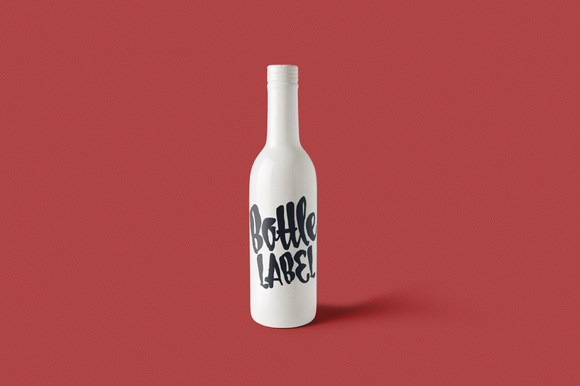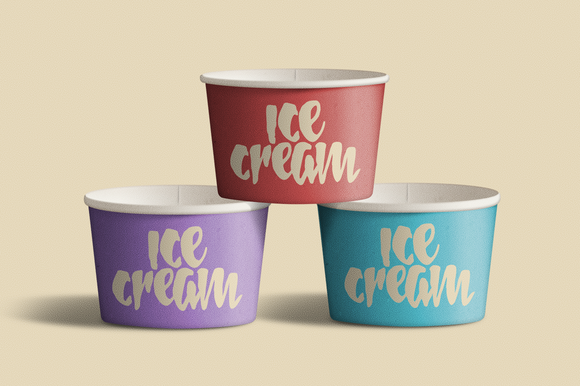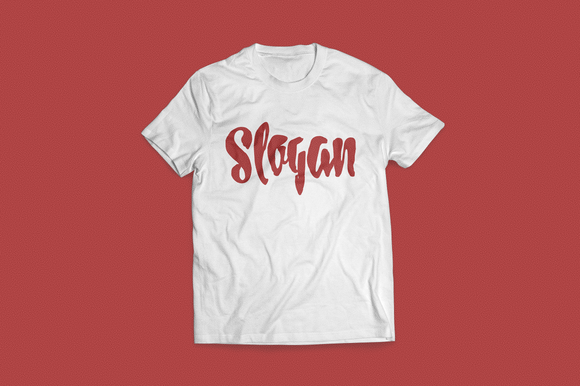
HomeScript FontsPaunchy Font Script Fonts Paunchy Font FacebookXPinterestWhatsApp Paunchy Font Poster 2 Paunchy Font Poster 3 Paunchy Font Poster 4 About Paunchy Font “Paunchy” is a playful and hand lettered, calligraphy based font. Especially made for Logos and Headlines DOWNLOAD ON CREATIVE FABRICAThis font is sold and delivered by Creative Fabrica. Font Canyon may earn a commission if you buy through this link. People also explored Farrina Font Cute Pinkies Font Crazy Rich Font Moustier Font Kinder School Font Rahayu Font Waanand Font Mock-Up Farmhouse Sign Shahira Font 296 0 TagsPaunchy Font Previous articleRumble Family FontNext articleLovely Madness Font LEAVE A REPLY Cancel reply Comment: Please enter your comment! Name:* Please enter your name here Email:* You have entered an incorrect email address! Please enter your email address here Website: Save my name, email, and website in this browser for the next time I comment. Personal Use Free Bettari Personal Use Free Read more about this font Lost Treasure Personal Use Free Read more about this font Adlanta Personal Use Free Read more about this font Messy Personal Use Free Read more about this font BLOG Top 7 Google Fonts Alternatives for Faster and Privacy-Friendly Web Design (2025) Top 7 Google Fonts Alternatives for Faster and Privacy-Friendly Web Design (2025) When it comes to web typography, Google Fonts has long been the go-to... 5 Fonts That Will Dominate Design Trends in 2026 How to Cut Any Font on Cricut: Convert a Font to SVG (Free) Transform Your Website: Elevate Your Typography with 7 Best Web Font Generators